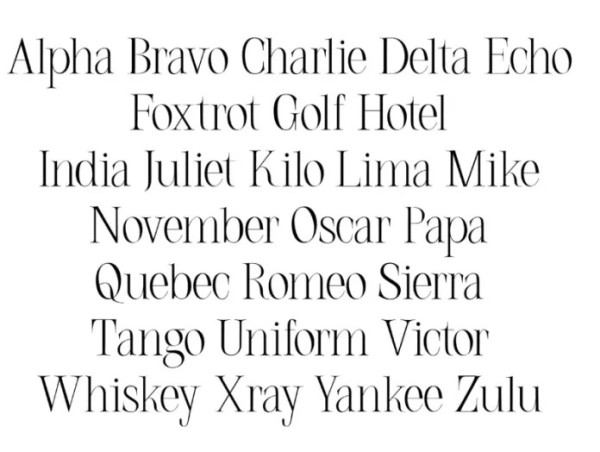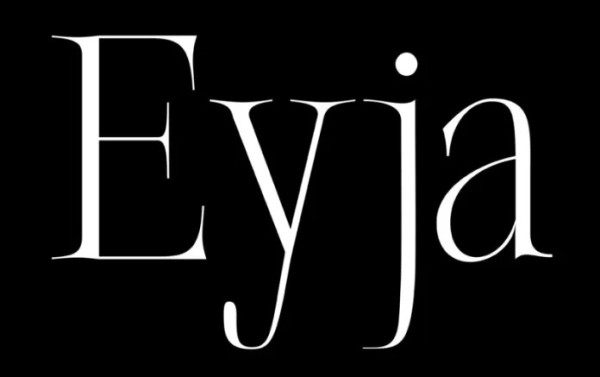
Eyja Font
Eyja Font is a perfect mix of modern with a touch of vintage. It is based on a serif typeface found in an 1852 edition of ‘Visit to Iceland and The Scandinavian North’ by Ida Pfeiffer. This font is perfect for editorial design, logos, branding, posters, magazines, social media, quotes, procreate designs and more!